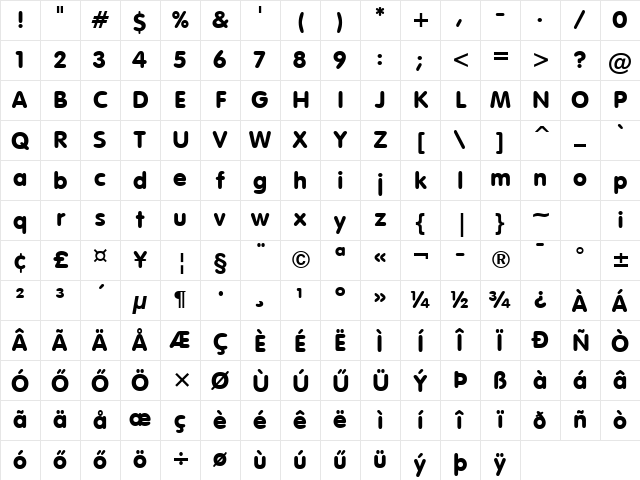
Hu_ Informal 801 WS Regular
Design Context for Hu_ Informal 801 WS
Hu_ Informal 801 WS is a composed and adaptable typeface that performs quietly and consistently across a wide range of design contexts.
Pro Tip: Use Hu_ Informal 801 WS in both headline and body roles to test its range before committing to a single application.